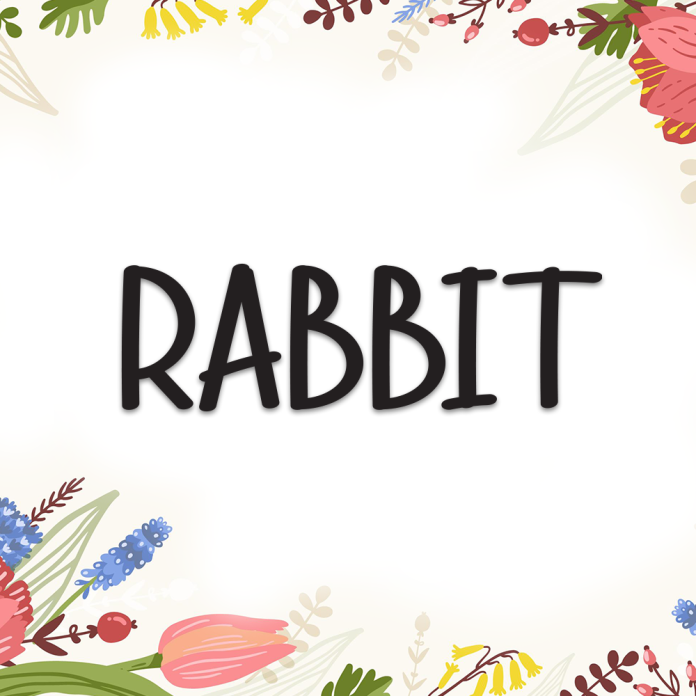
Rabbit is a cute and playful display font inspired by the charm of bunnies. With rounded edges and fun letterforms, it’s perfect for cheerful and friendly designs.
Playful and adorable display style
Perfect for children’s books, greeting cards, and creative posters
Rounded and soft letter shapes for a friendly look
Includes uppercase, lowercase, numbers, and punctuation
Supports multiple languages
Bring a touch of sweetness and fun to your designs with Rabbit.